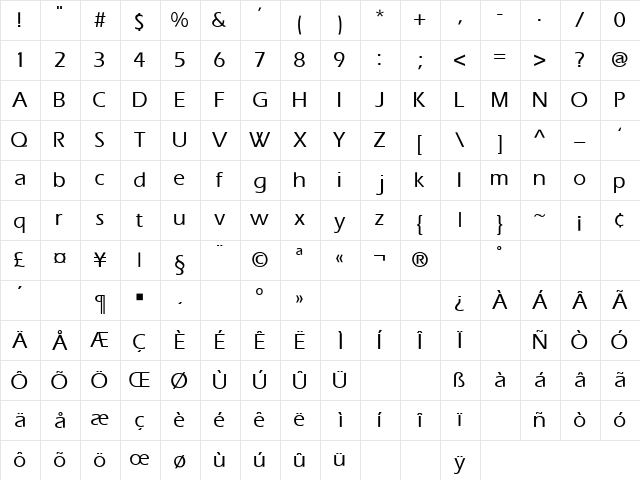
Eras-Medium Medium
Design Context for Eras-Medium Typeface
Eras-Medium offers clean, dependable letterforms without strong stylistic allegiance, making it a practical choice for designers who need flexibility.